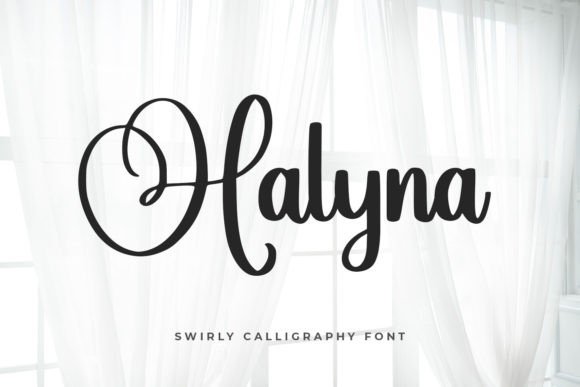
Introducing Halyna Font, the perfect script font for all your creative needs! Created by the talented Abodaniel, this beautiful handwritten font is a must-have for anyone looking to add a touch of elegance to their designs.
With its unique and charming style, Halyna Font is the ideal choice for wedding cards, branding projects, quotes, logos, t-shirt designs, tote bag creations, cards, banners, social media posts, and so much more. Let your creativity run wild as you explore the endless possibilities this font has to offer.
Capture the essence of timeless beauty with Halyna Font. Its graceful strokes and intricate details will transport you to a world of vintage charm and sophistication. Whether you're designing a romantic wedding invitation or creating a nostalgic t-shirt design, this font will elevate your project to new heights.
Immerse yourself in the magical world of Halyna Font and let it evoke emotions and memories like no other. Its flowing curves and handwritten feel will effortlessly bring a sense of warmth to your designs, making them truly captivating and memorable.
Enhance your brand's identity with Halyna Font. Its versatility allows it to adapt to any style or concept, ensuring that your logo or branding materials stand out from the crowd. Leave a lasting impression on your audience with this eye-catching font that speaks volumes about your creativity and attention to detail.